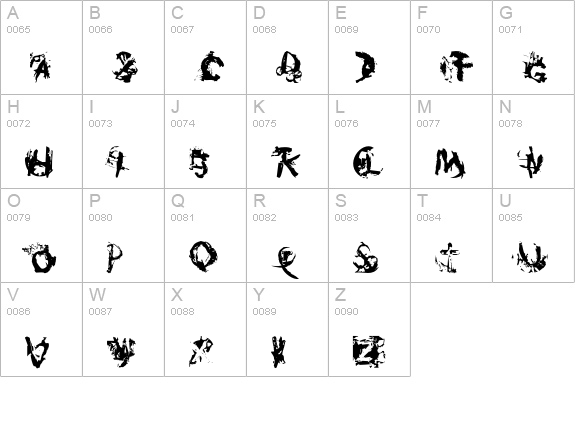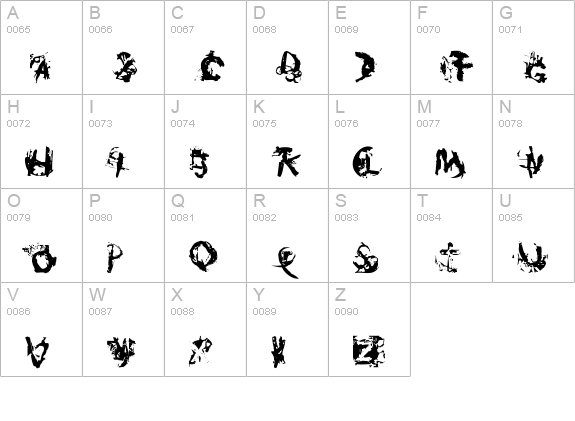
Burnfont Font Details
Introducing Burnfont, a bold and captivating font that is sure to make a statement in any project. With its edgy and modern design, Burnfont effortlessly combines elegance and power, making it a versatile choice for a wide range of creative endeavors. Whether you're designing a poster, logo, or website, Burnfont will add a touch of sophistication and style to your work. The best part? Burnfont is available for free download at FontsMarket.com, so you can easily add this striking font to your collection without breaking the bank. Don't miss out on this opportunity to enhance your designs with the unique charm of Burnfont. Download it today and let your creativity soar!